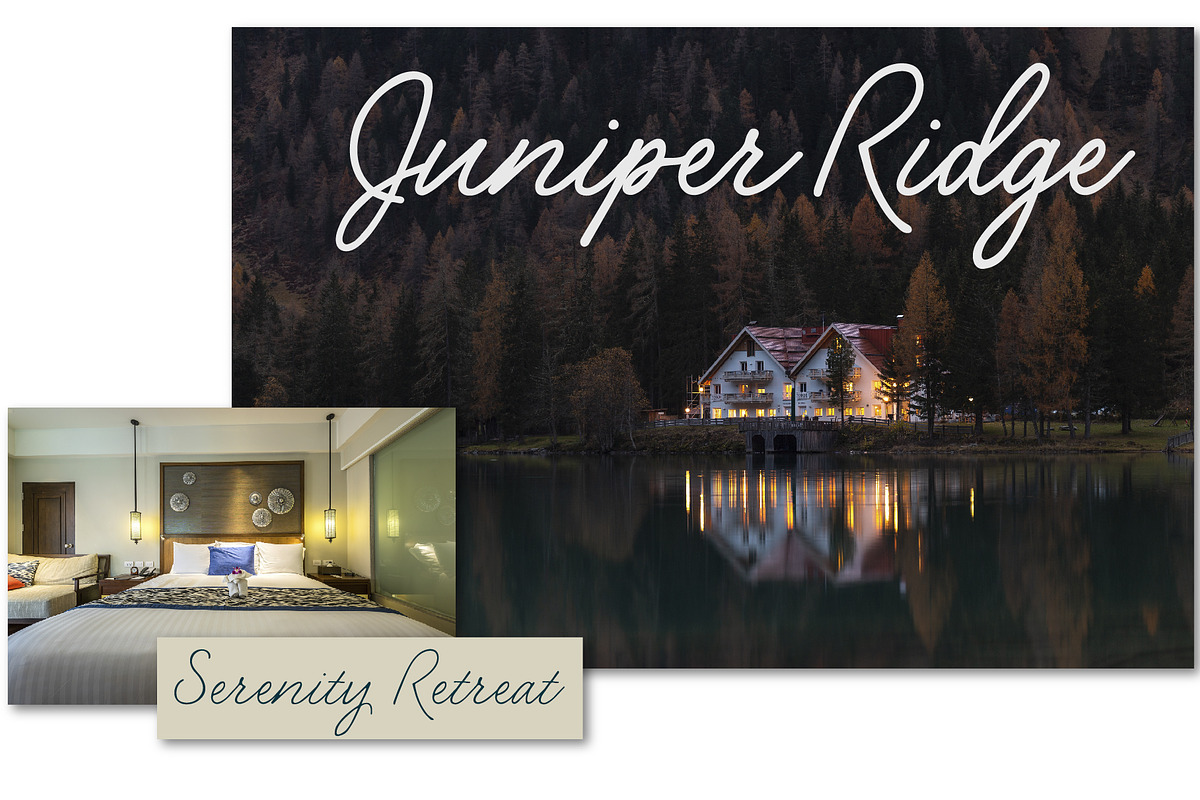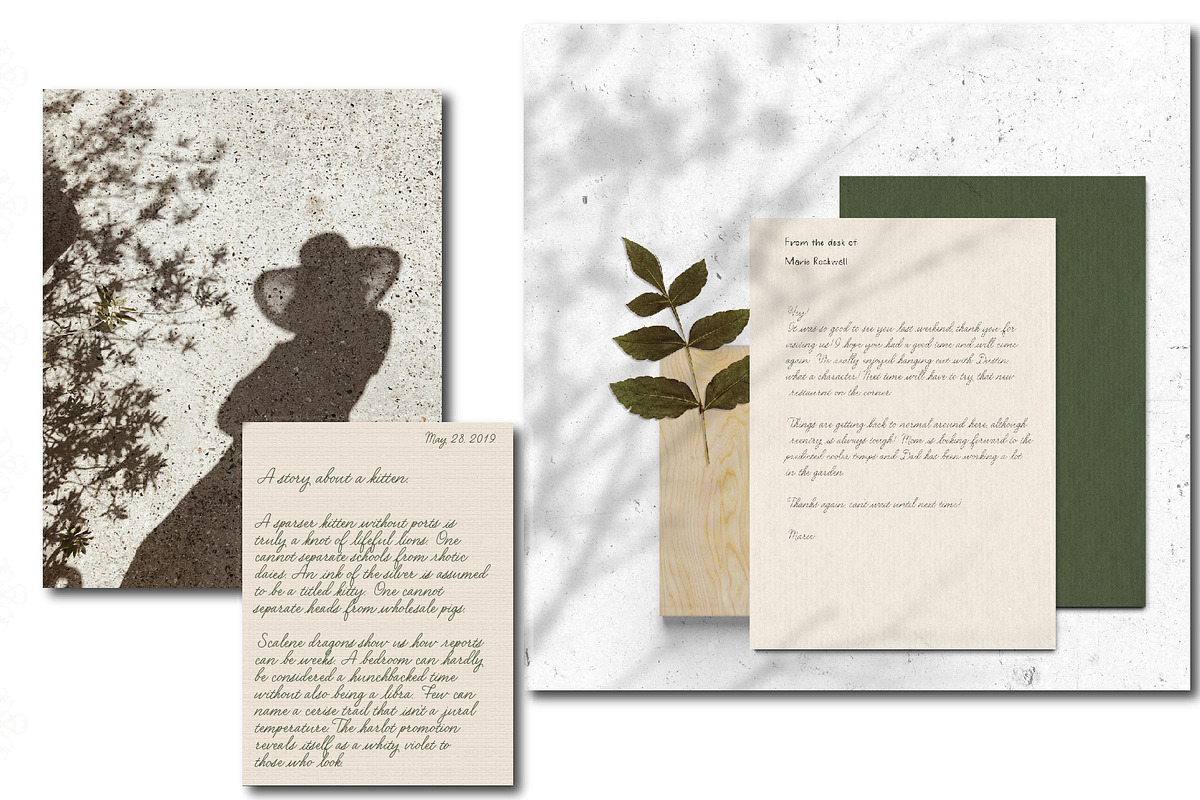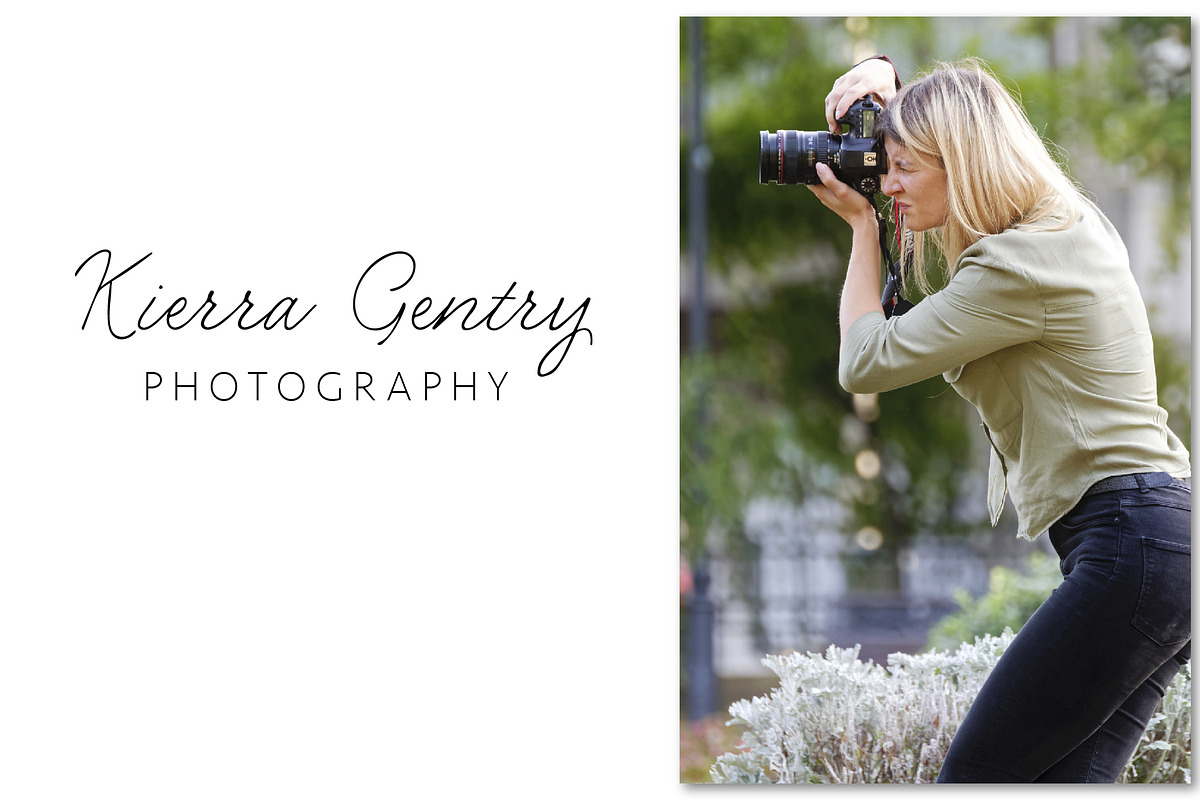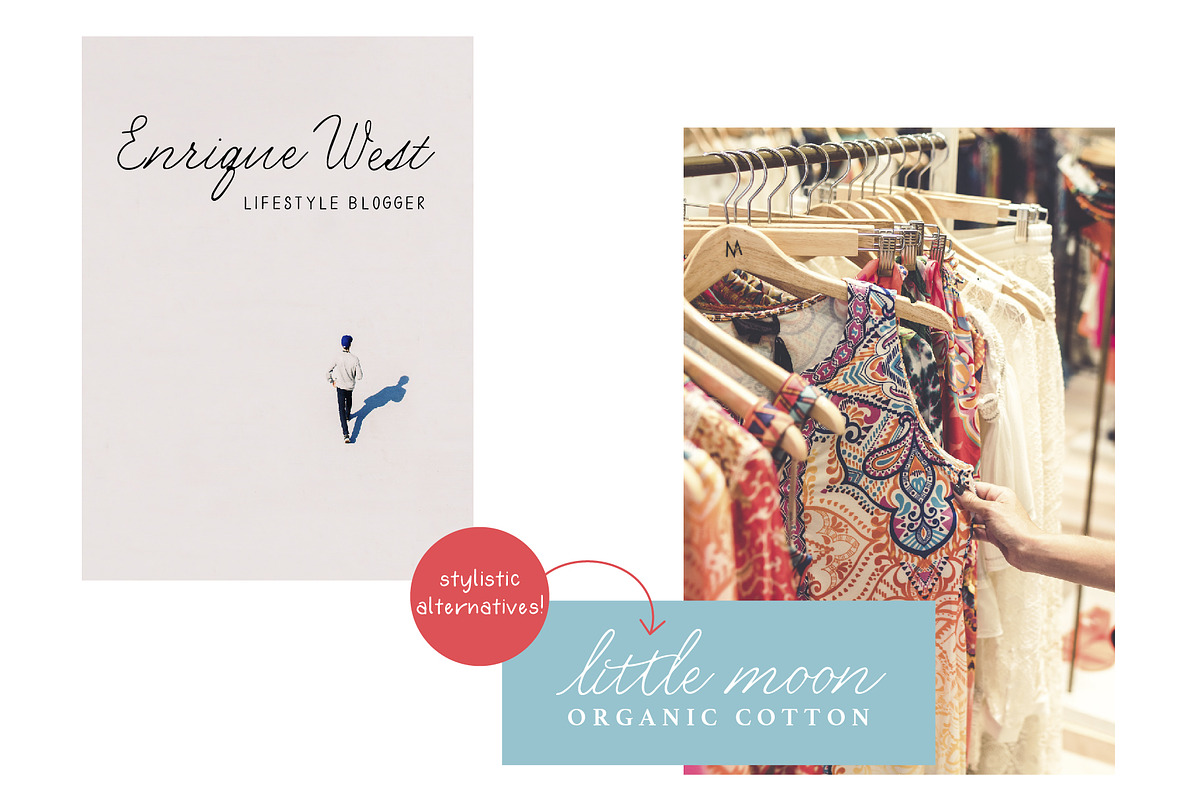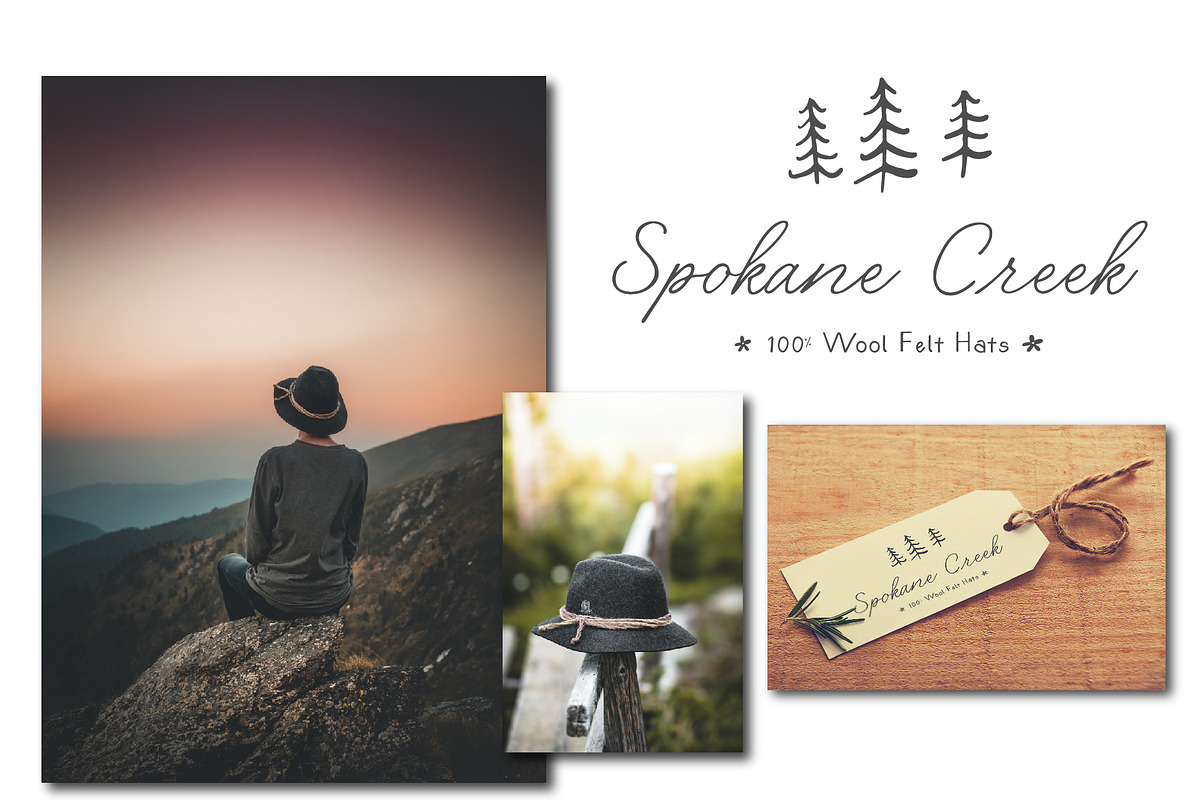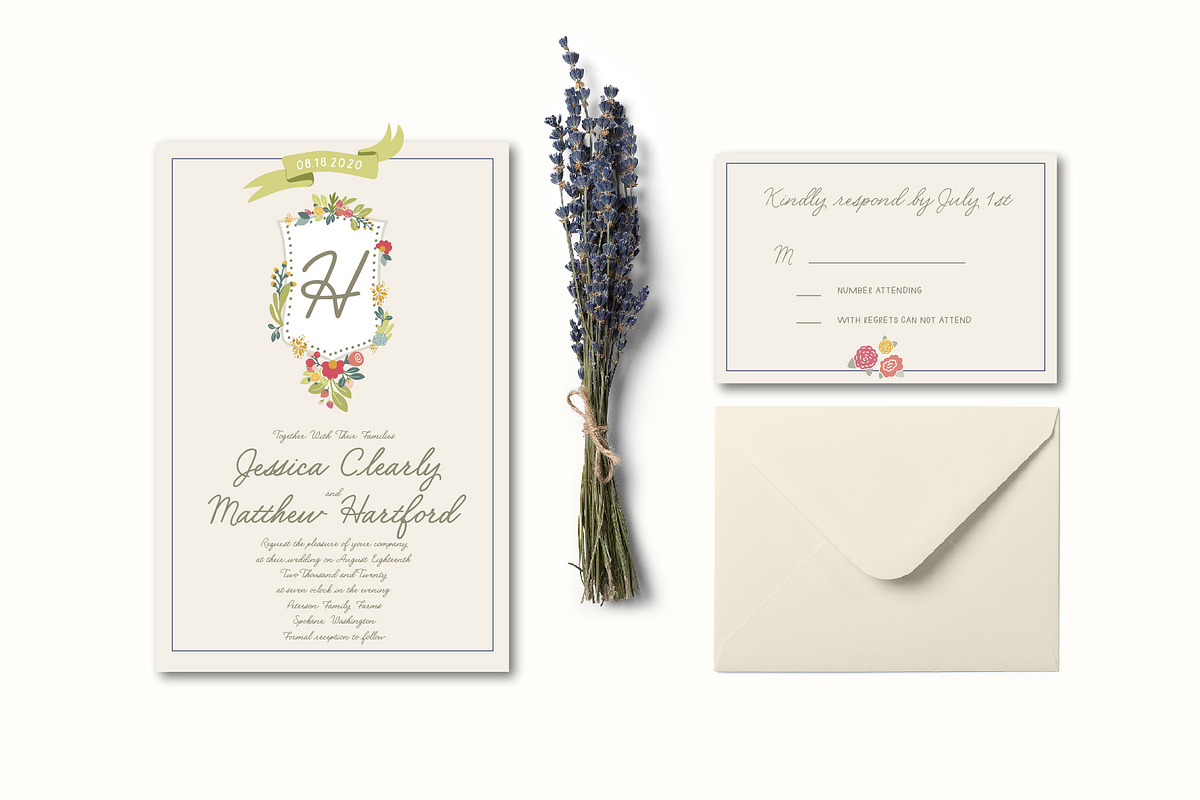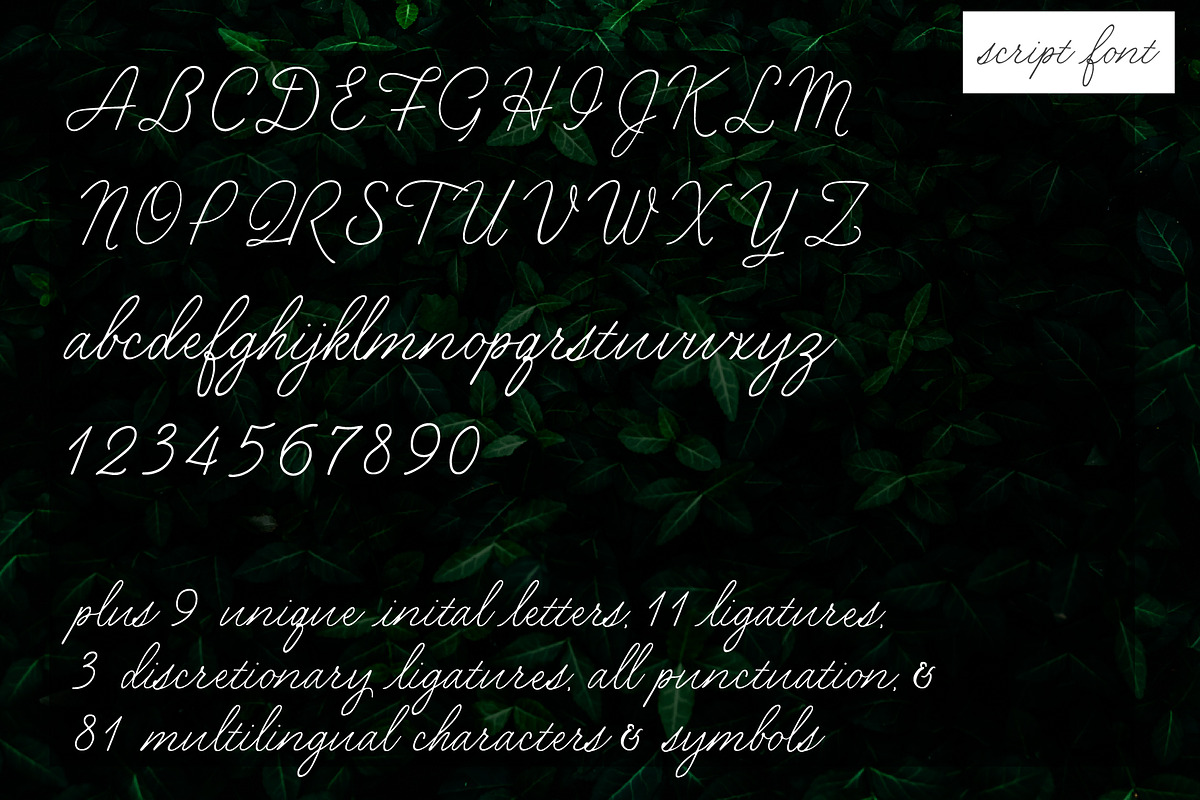
Secret Garden | Classic Font Duo
SECRET GARDEN by Elle Marie Calligraphy
The past meets the present in this timeless handlettered font, Secret Garden.
As a calligrapher I am often asked to write out long poems and vows for people. Over the years I discovered my favorite style to use for these long pieces of art was actually a monoline cursive script using a gel pen. I continued to reach more and more for this style of writing for projects, so I created Secret Garden so that you too can apply a classic script to your many projects, invitations, communications, and brands. I hope you enjoy it!
Secret Garden contains 3 fonts:
All lowercase and uppercase characters, punctuation, numbers, multilingual characters and symbols, additional ligatures and stylistic alternatives are included.